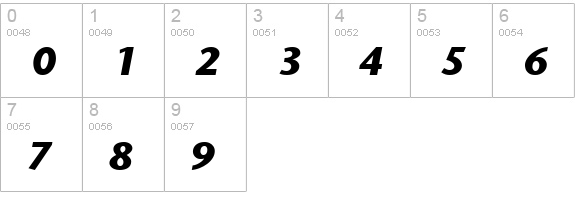
Mesouran Sans Black SSi Bold Italic is a maximum-weight, dramatic, italic variant in the Mesouran typeface family \xE2\x80\x94 well suited to maximum-impact headlines, posters, and packaging.
Mesouran Sans Black SSi Bold Italic is a striking and powerful font that exudes confidence and modernity. Its bold and italicized style commands attention and adds a touch of sophistication to any design project. The sleek lines and sharp angles of this font make it ideal for headlines, titles, and branding materials. What sets Mesouran Sans Black SSi Bold Italic apart is not just its boldness, but also its versatility. Whether used in print or digital media, this font delivers a strong visual impact that is sure to leave a lasting impression. Its readability and distinct personality make it a perfect choice for projects that require a bold statement. And the best part? Mesouran Sans Black SSi Bold Italic is available for free download at FontsMarket.com. This means you can easily access this premium font without any cost, making it a valuable addition to your font collection. Don't miss out on the opportunity to enhance your designs with this bold and stylish typeface. Download Mesouran Sans Black SSi Bold Italic today and elevate your creative projects to new heights.